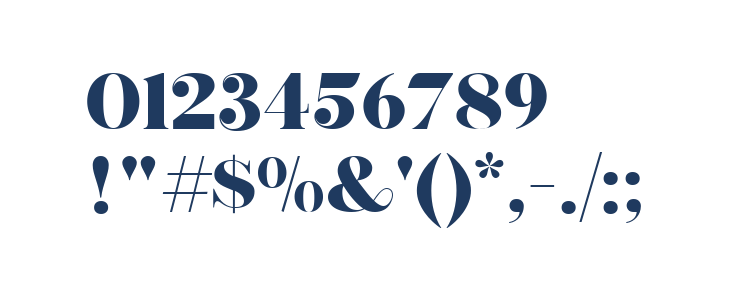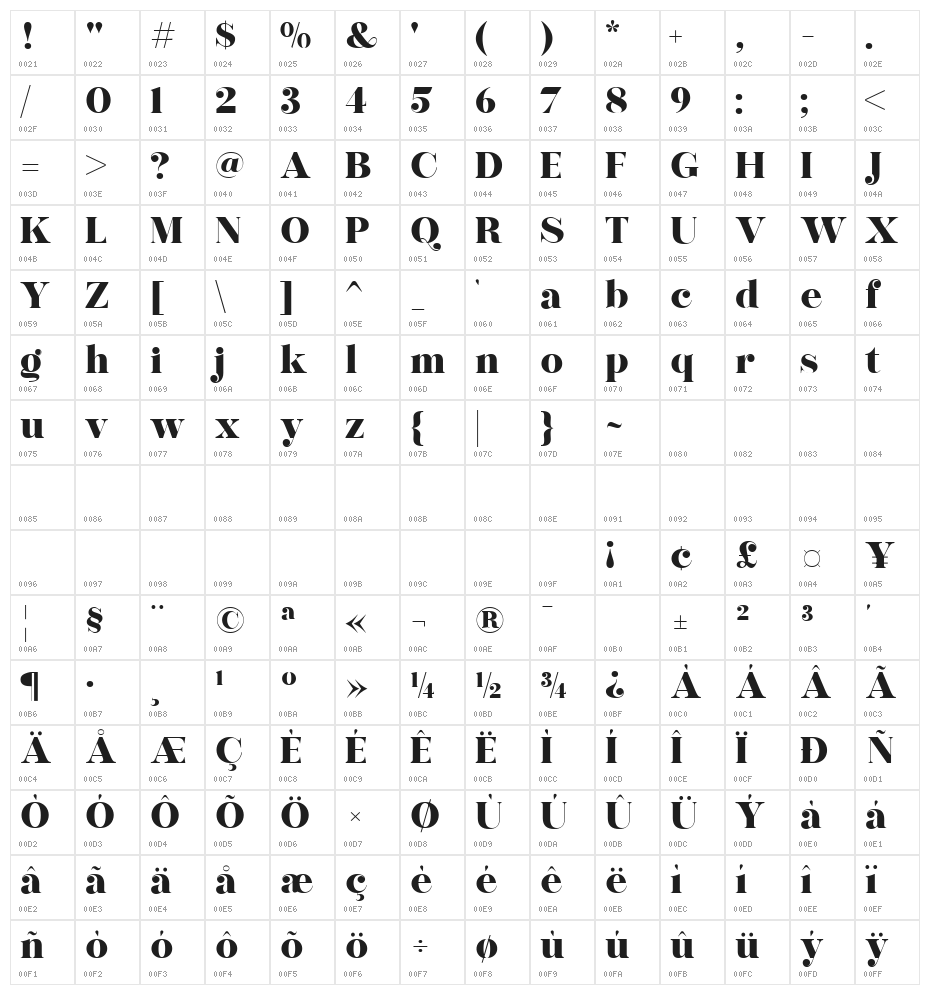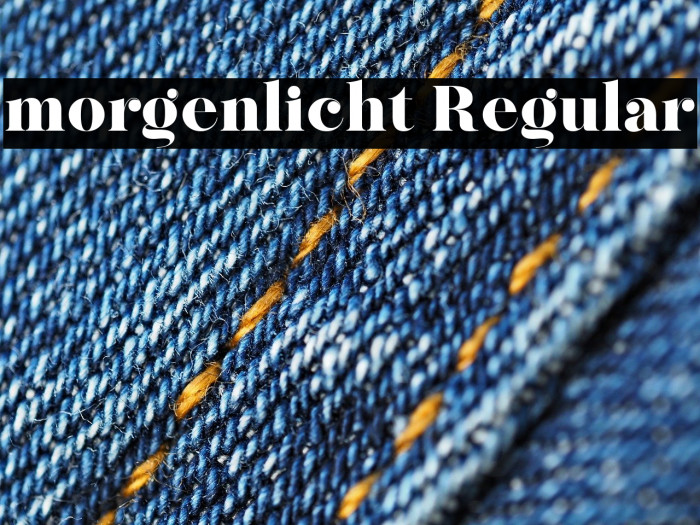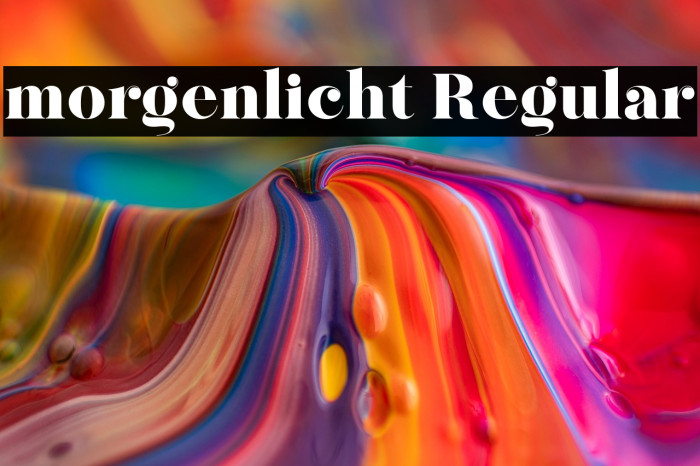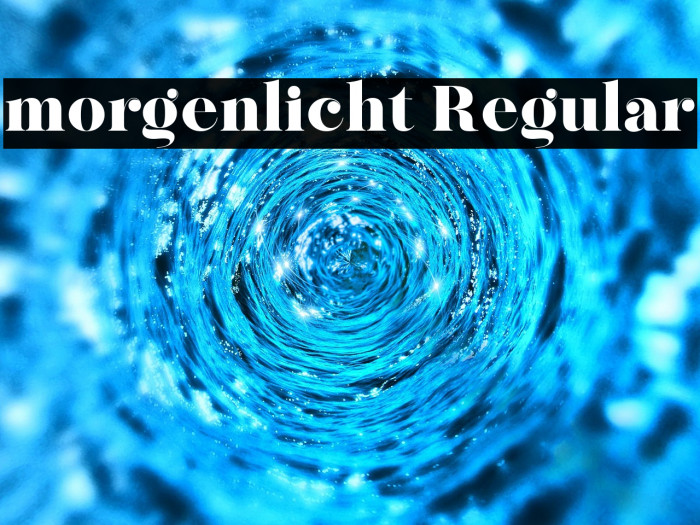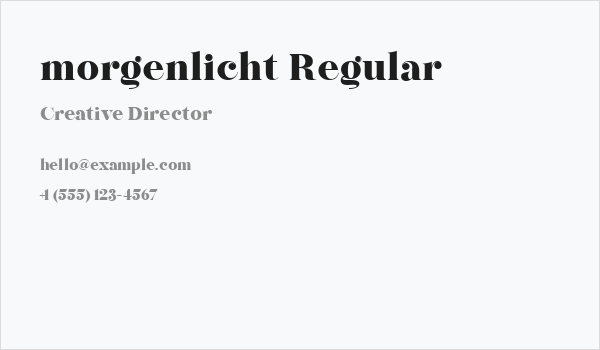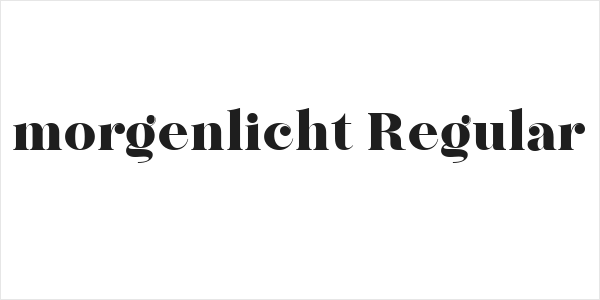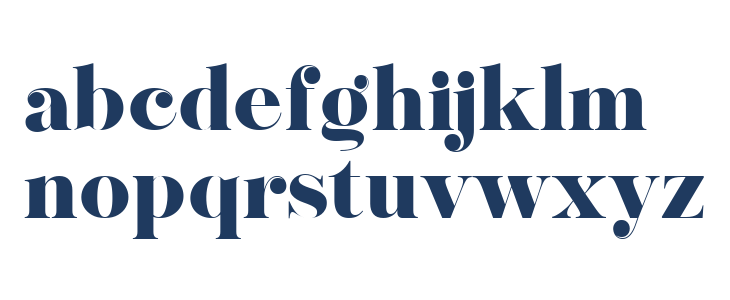
morgenlicht Regular Font
morgenlicht Regular Description
This font features a bold and dramatic style with high contrast between thick and thin strokes, giving it a striking and elegant appearance. The uppercase letters are characterized by sharp serifs and a strong vertical emphasis, while the lowercase letters maintain a consistent weight, providing a harmonious balance. The numerals are equally bold, with unique curves that add a touch of sophistication. Special characters are designed with the same attention to detail, ensuring a cohesive look across all glyphs. This font's distinct style makes it suitable for projects that require a bold statement.